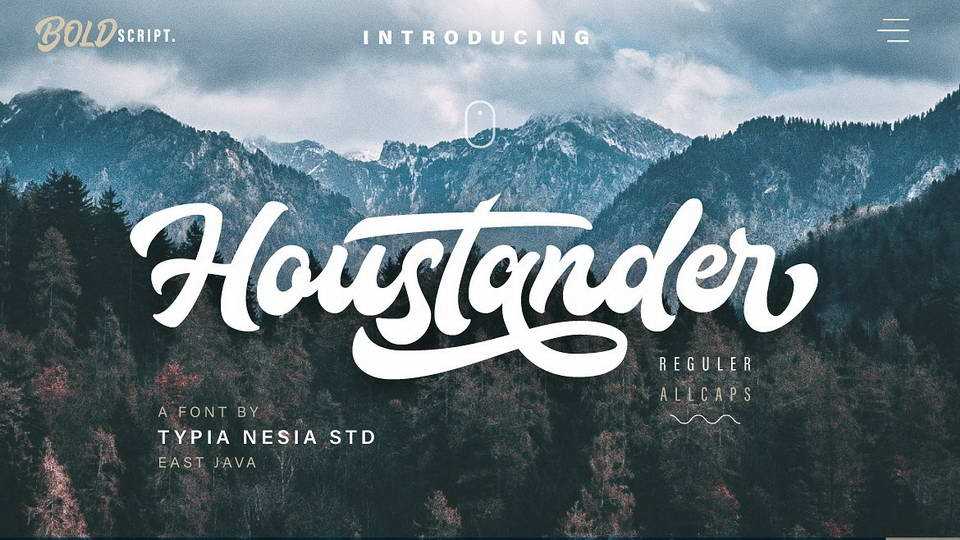
Download Houstander font, an excellent vintage script for modern hand lettering logo or headline. Houstander script is suitable for any design needs: logo, branding, advertising design, logos, poster quote, book / cover title, editorial design, website / blog, card and more.
Designer: Typia Nesia